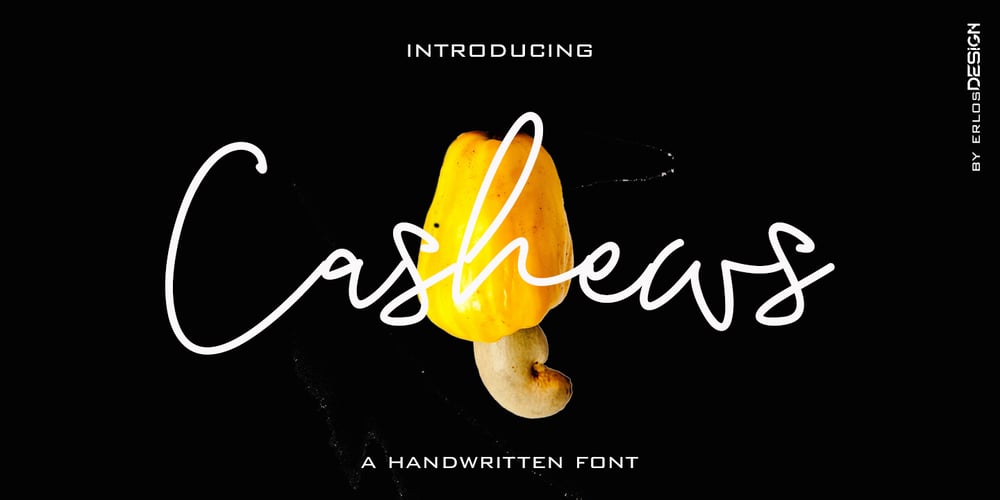
Cashews Font Family was designed by Erlangga Suherman and published by ErlosDesign. Cashews contains 1 styles and family package options. Cashews is a handwritten, happy and fun handwritten monoline script. It features an incredibly classic style, while still keeping a friendly feel. Perfect for titles, headings and logotypes for blog, products and lifestyle imagery like quotes and stuff.